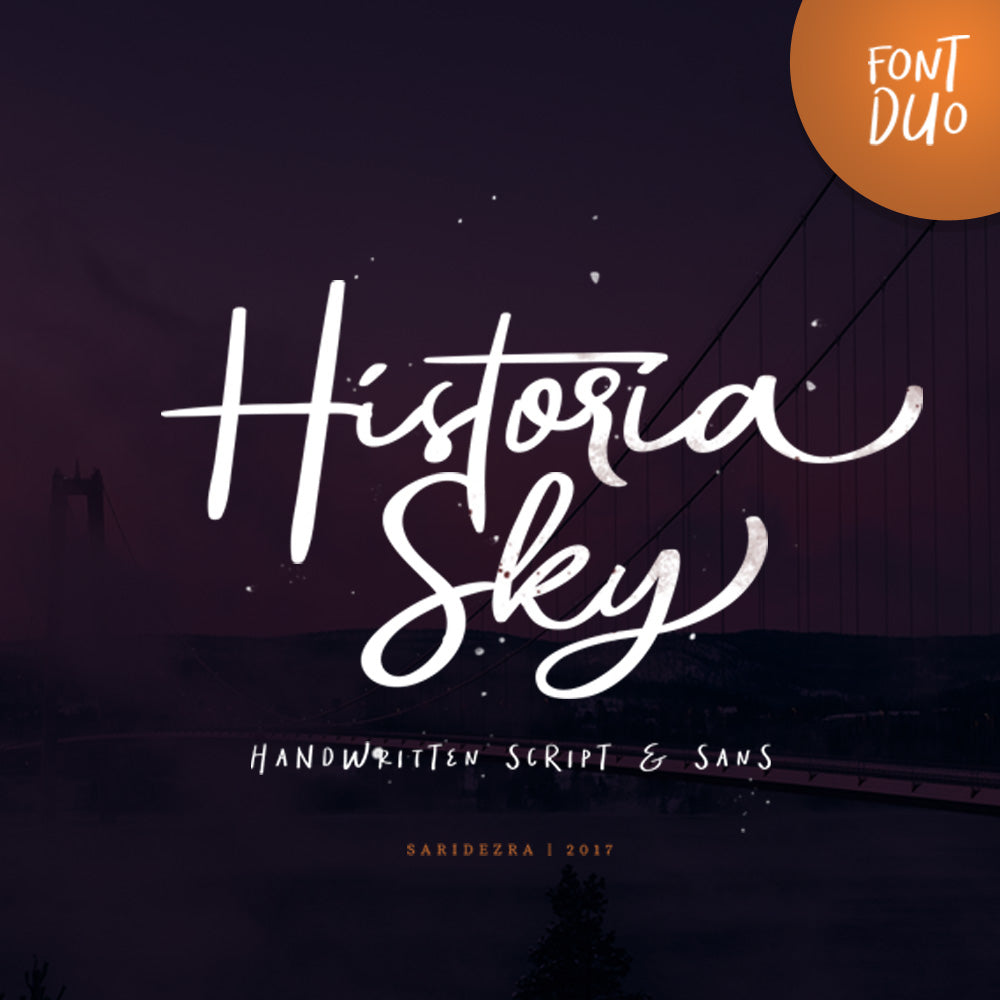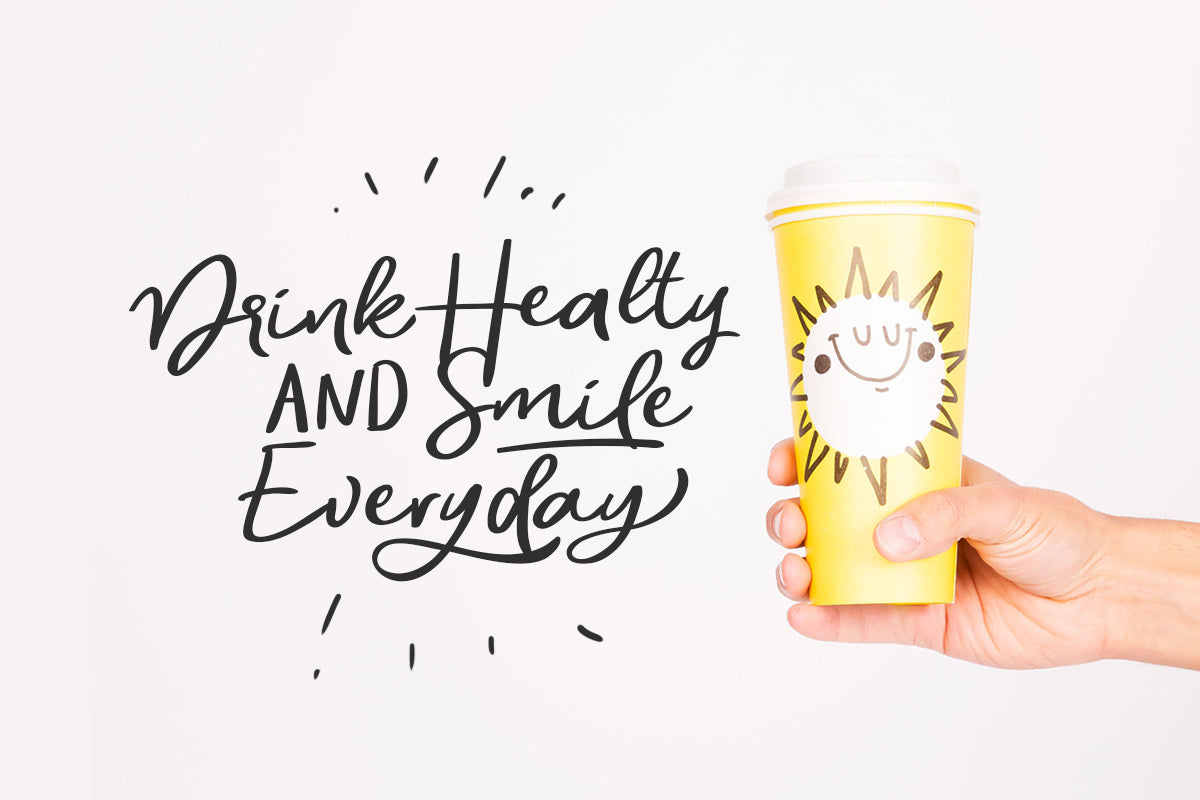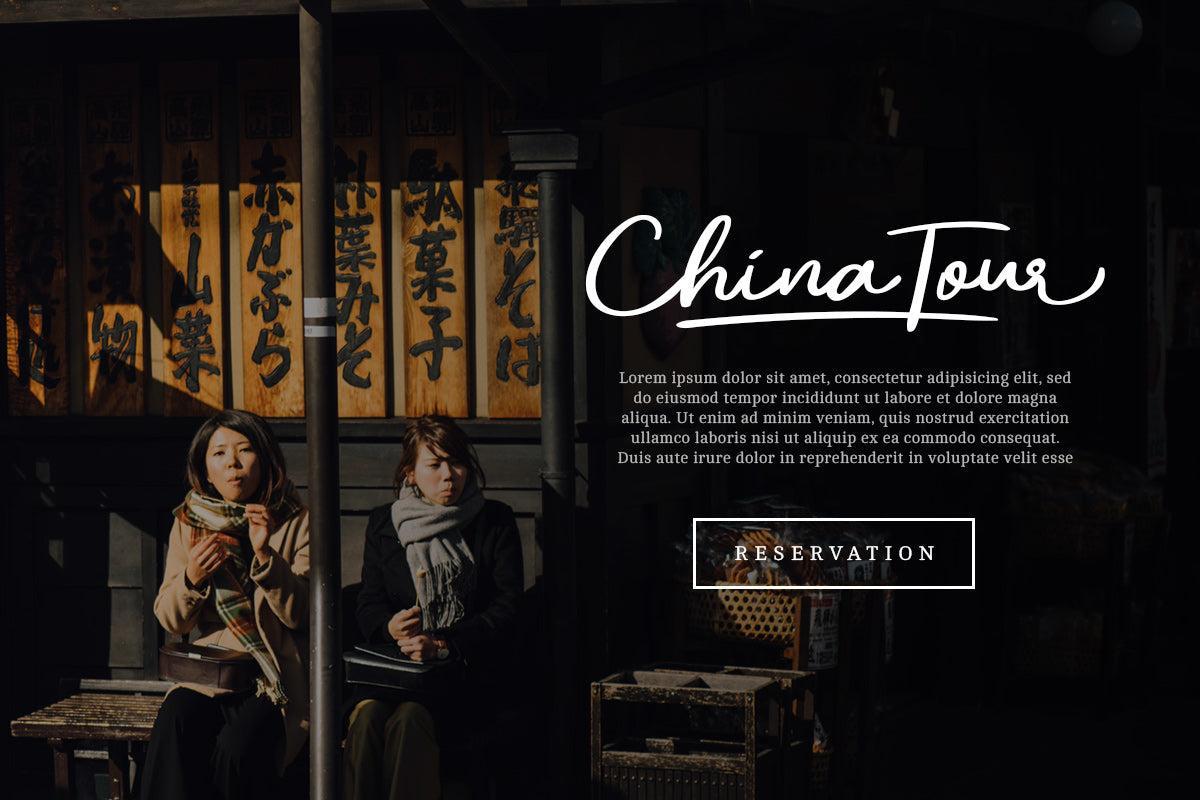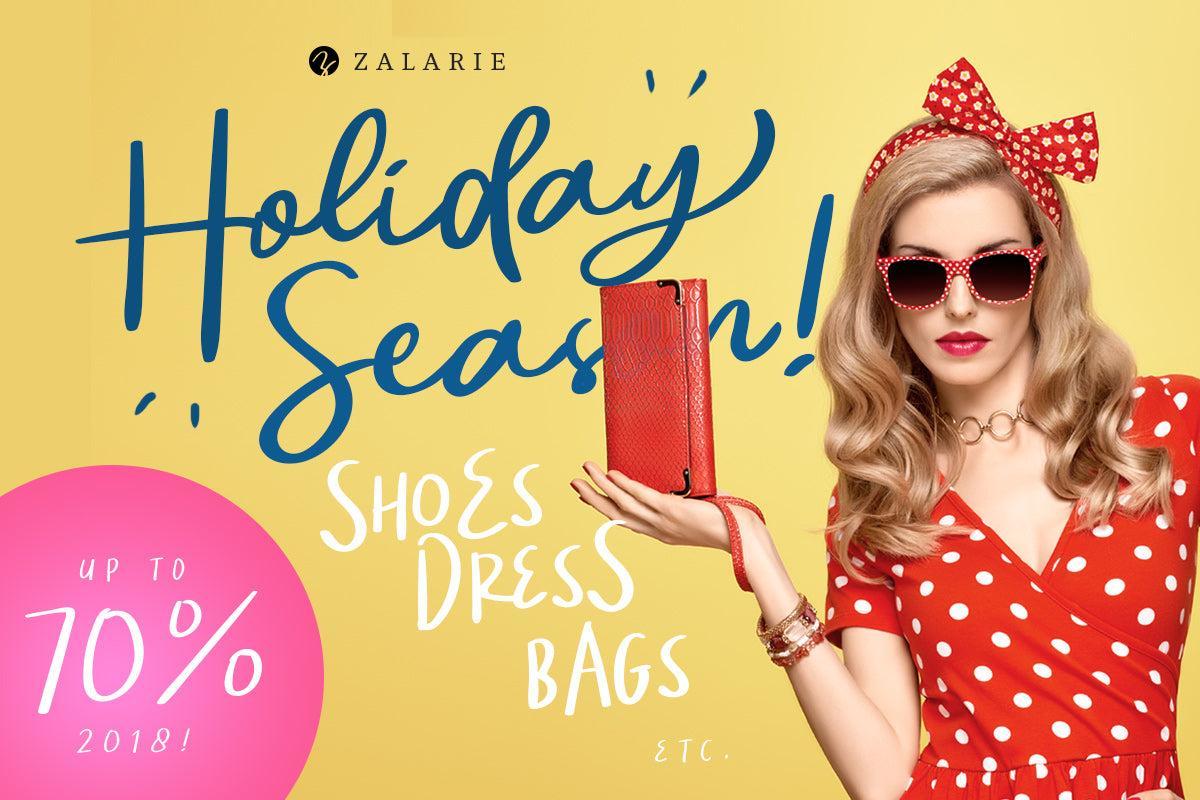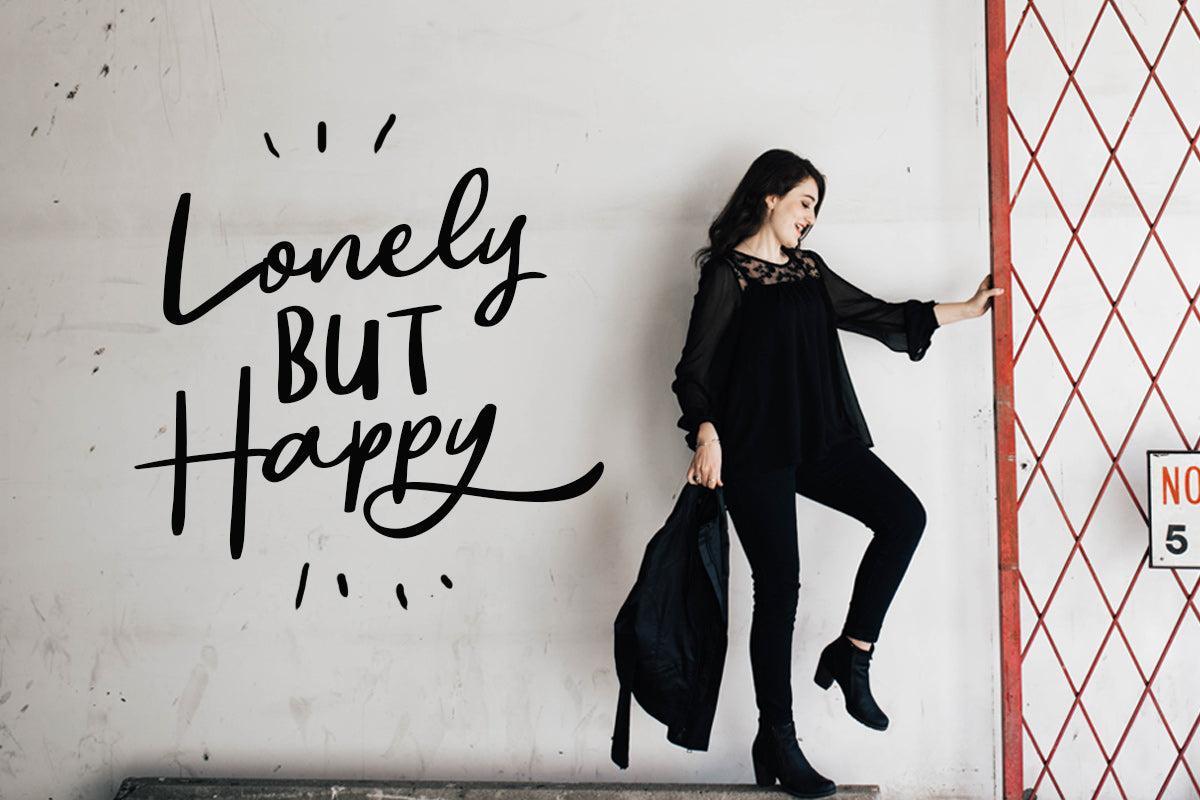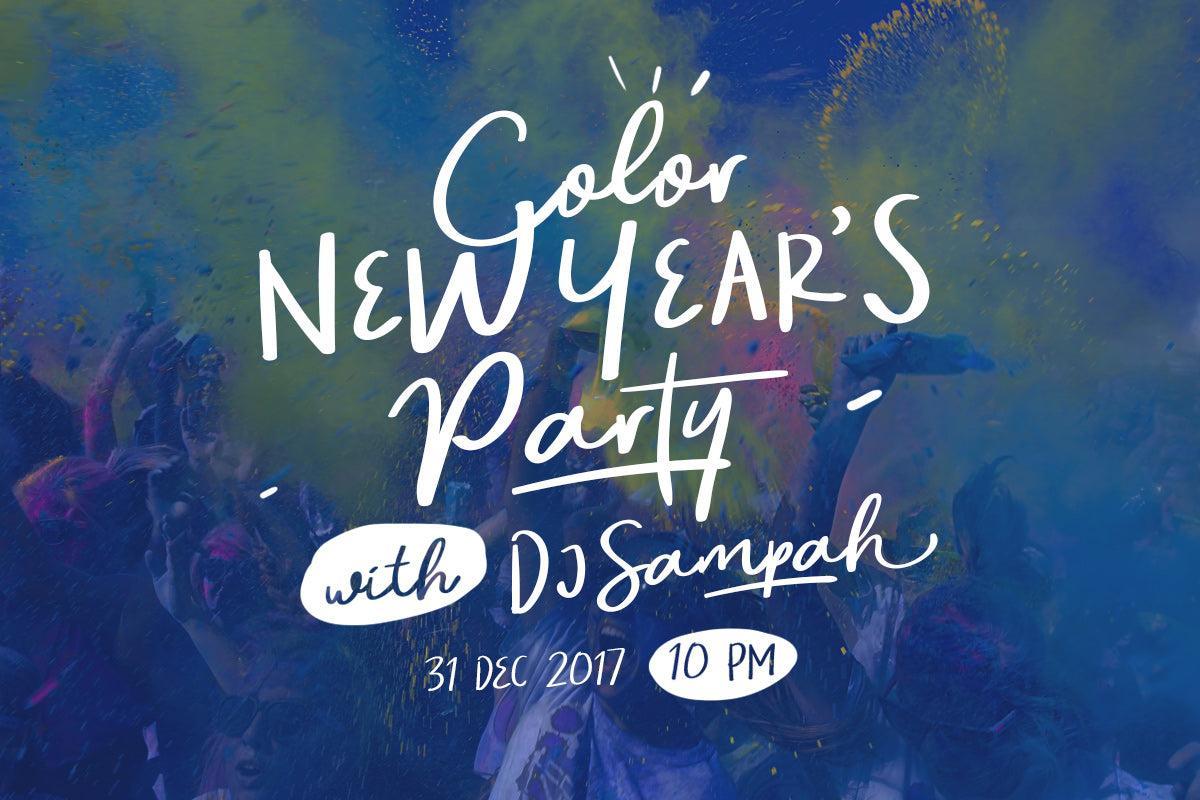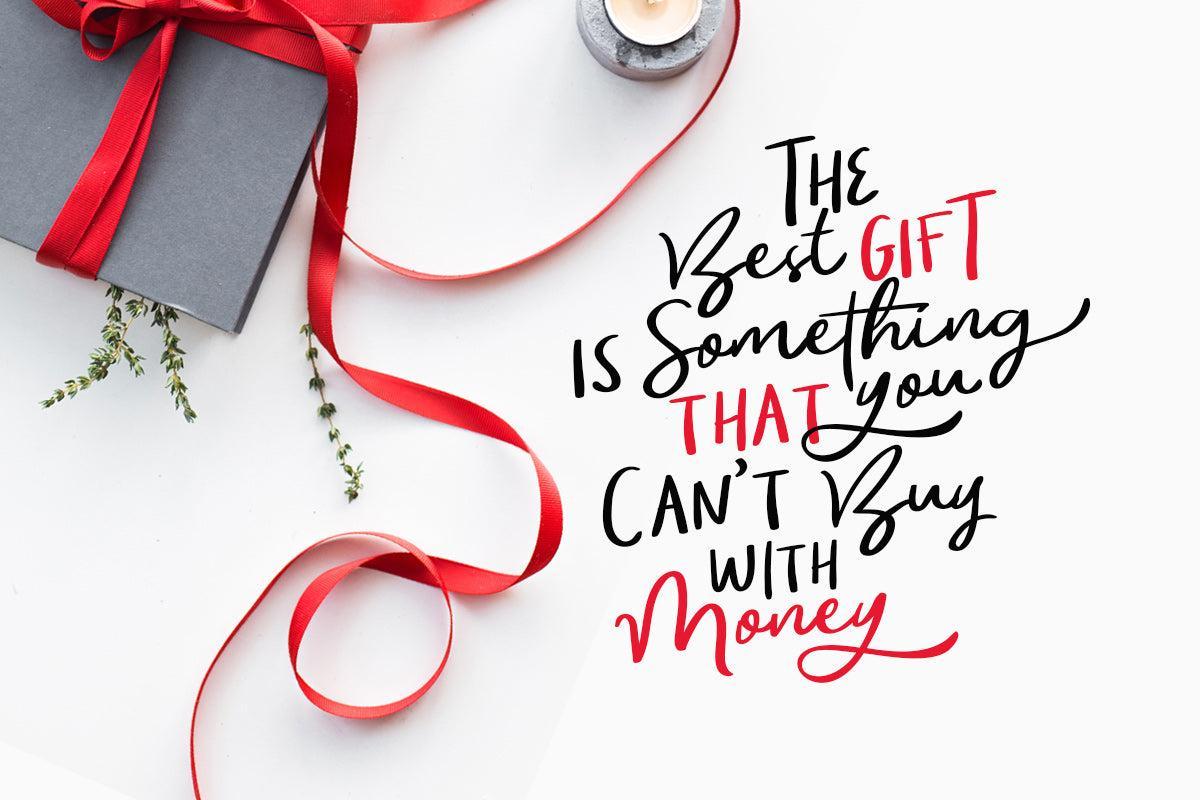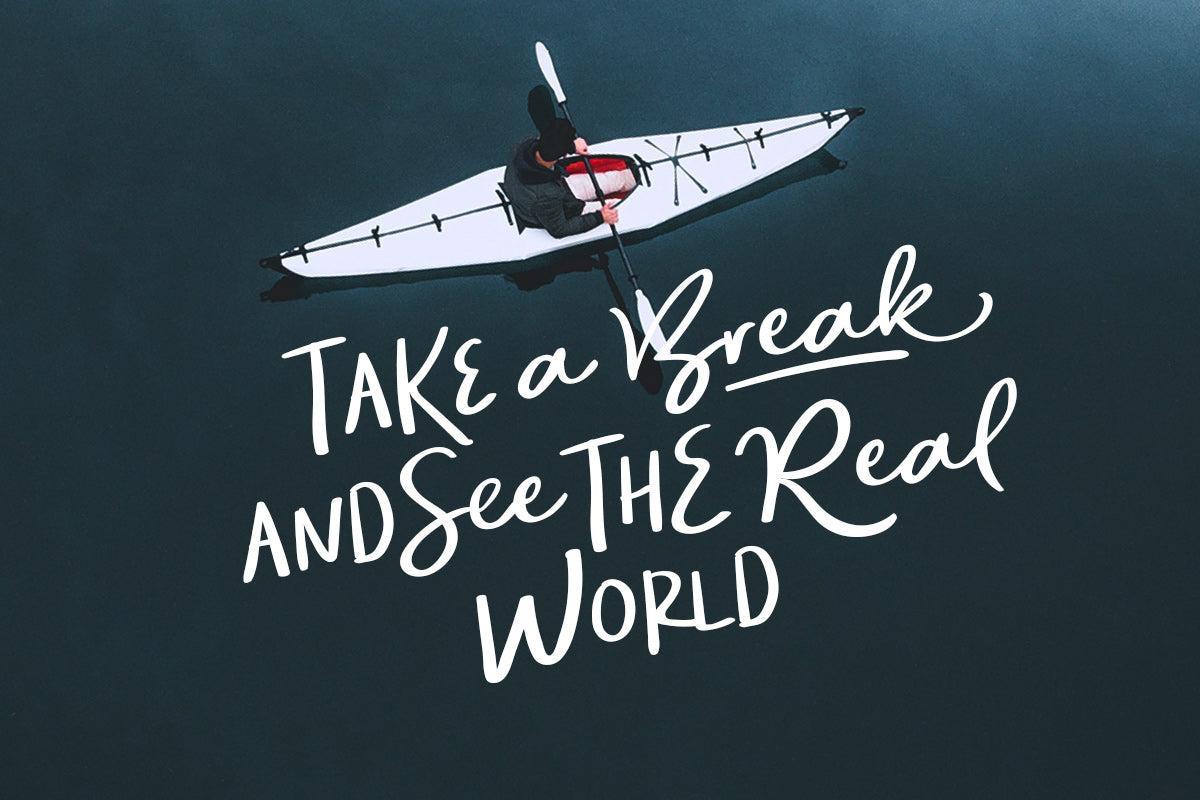
Historia Sky - Font Duo
Historia Sky is a handwritten font duo that includes stylistic alternates and swashes, allowing for customized signatures and quotes. It supports multiple languages and is available in OTF and TTF formats, with PUA encoding included.